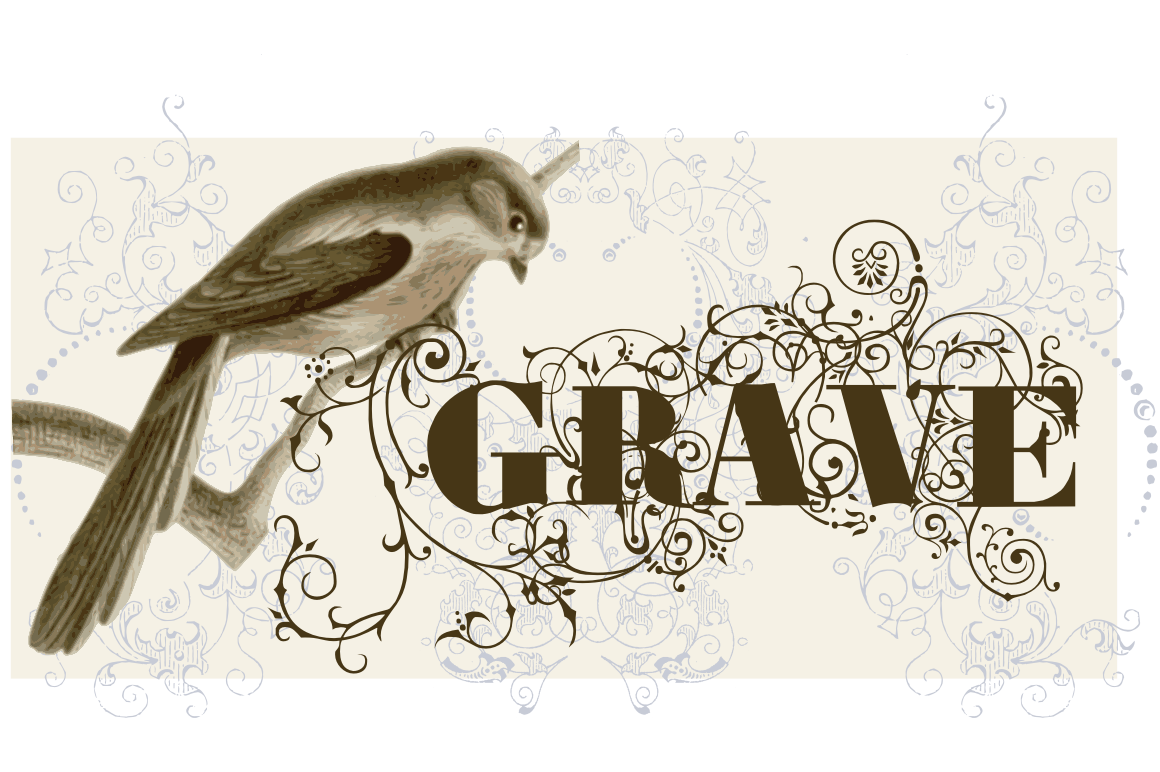
Grave pack, high ornamental fonts
Grave Ornamental is a Intellecta's best seller, a classic font design remastered, distressed and antique, merging the bodonian style with tendrils and victorian ornaments. Ideal to use in in display purposes for a stylized type design. This SPECIAL PACK has two fonts, Grave Ornamental and Grave Plus Complete.